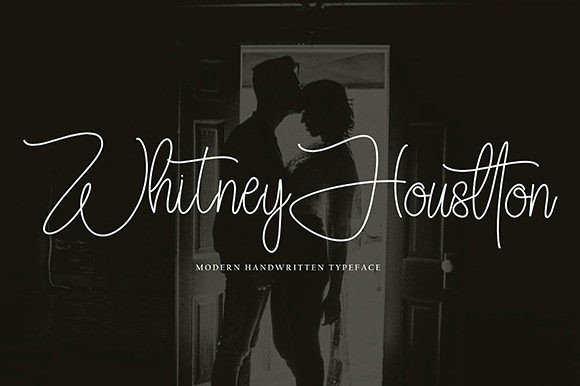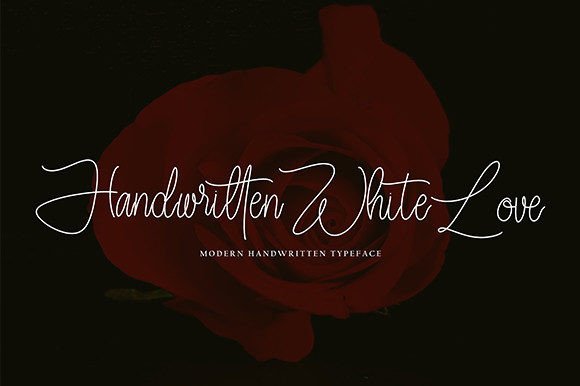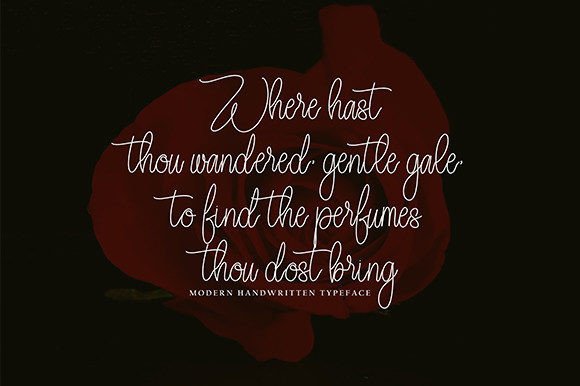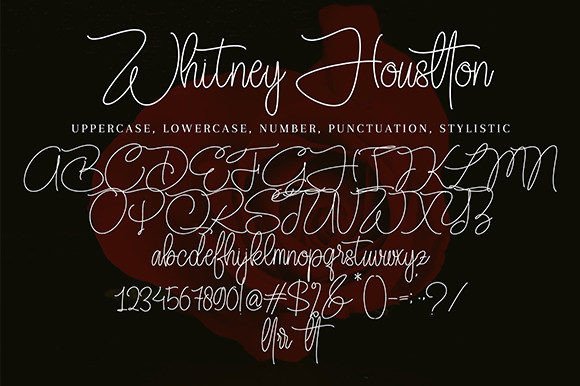
Whitney Houstton Font
Whitney Houstton Font: Elegant Script for Personalized Designs
“Whitney Houstton” is a unique and elegant handwritten font that exudes sophistication and personalized style. It’s perfect for various design applications, from wedding invitations to logos.
Key Features of Whitney Houstton Font
• Elegant Style: Whitney Houstton brings a refined and personalized look to designs.
• Versatile Use: Suitable for many projects, including greeting cards and branding materials.
• Unique Character: Creates a distinctive atmosphere in typography.
Wedding Stationery
Whitney Houstton’s elegant style is ideal for creating beautiful wedding invitations and thank you cards that convey personal touch.
Use Whitney Houstton to design sophisticated logo designs and branding materials that stand out with individuality.
Greeting Cards and Personal Stationery
The font’s unique look makes it perfect for creating captivating greeting cards and personal stationery.
Why Choose Whitney Houstton Font?
Whitney Houstton offers more than just beautiful letters. Here’s why it stands out:
• Enhances overall aesthetics with its elegant script style
• Conveys a sense of individuality and personal touch
• Adds a touch of refinement and sophistication to designs
By using Whitney Houstton, you open up new design possibilities. Its elegant style works well in many contexts, from poster designs to website headers. The font’s ability to convey sophistication can inspire creative ideas and help you approach projects from a fresh, personalized perspective.
If you’re looking for a font that combines elegance with individuality, Whitney Houstton is an excellent choice. It’s perfect for adding a touch of personal style to your work, especially for projects that need a refined, distinctive feel.
Explore how Whitney Houstton can transform your designs. From branding projects to personal creations, this font brings a sophisticated and unique quality to your work.